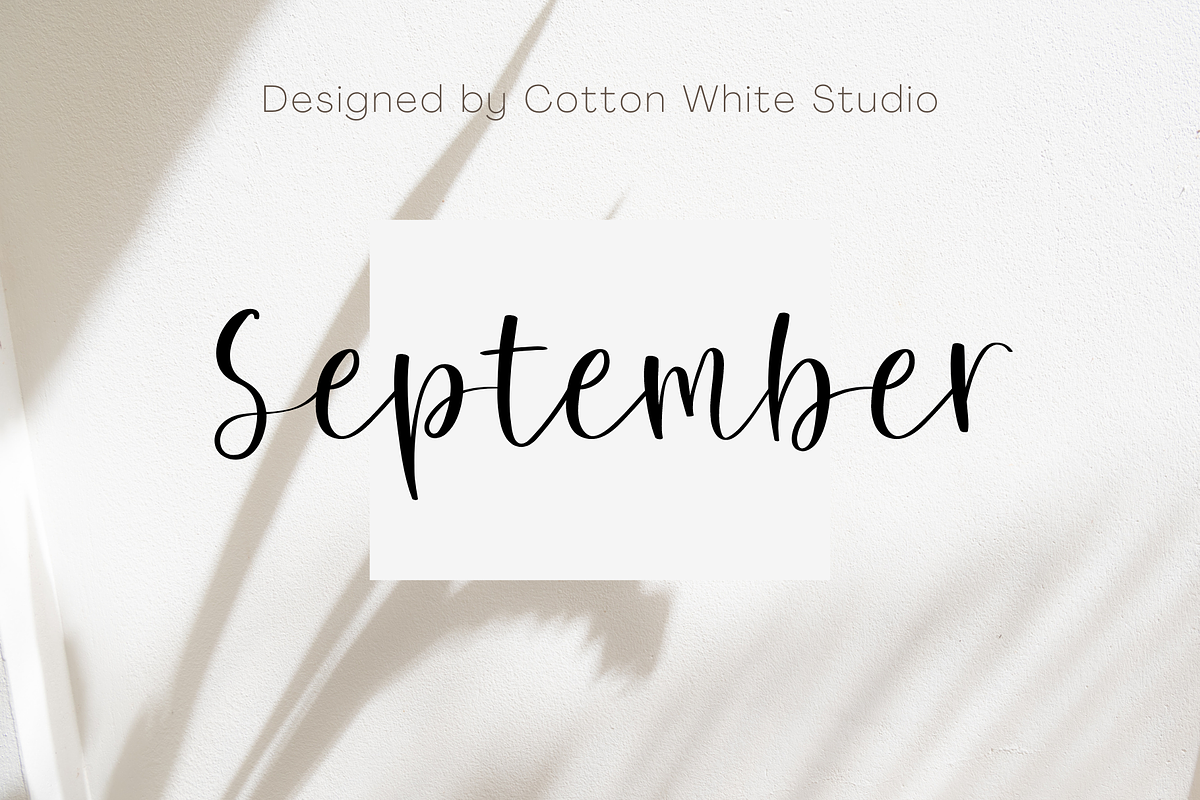
September Feminine Font Free Download
The September Feminine Font Free Download is a beautiful, elegant script font that brings a soft, sophisticated touch to your designs. With its flowing curves and delicate letterforms, this font is perfect for creating stylish logos, invitations, greeting cards, and other feminine-themed projects. Its refined and graceful style ensures that your designs have a personal, yet polished look. Please note, for commercial use, you will need to purchase a license. However, you can easily download the September Feminine Font Free Download for free for personal use and explore how it elevates your creative projects. Whether you're working on branding, wedding invitations, or any other design that requires an elegant touch, this font will add charm and beauty to your typography. Download the September Feminine Font Free Download today and add a graceful, feminine flair to your work.